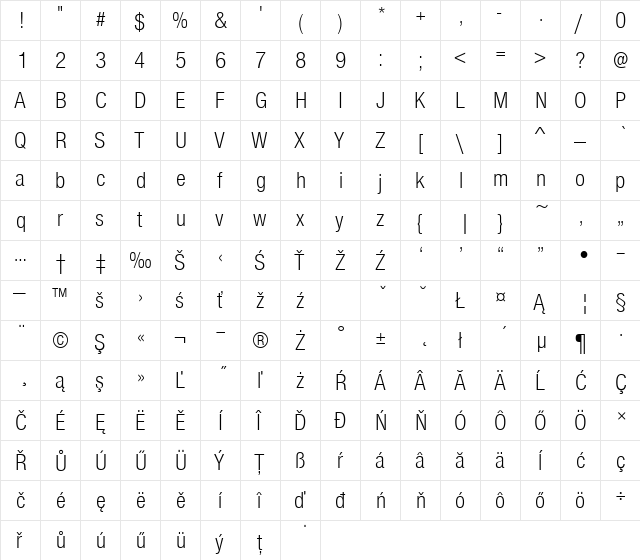
NimbuSanDEELigCon Regular
Design Context for NimbuSanDEELigCon Typeface
NimbuSanDEELigCon is a composed and adaptable typeface that performs quietly and consistently across a wide range of design contexts.
Pro Tip: Use NimbuSanDEELigCon in both headline and body roles to test its range before committing to a single application.